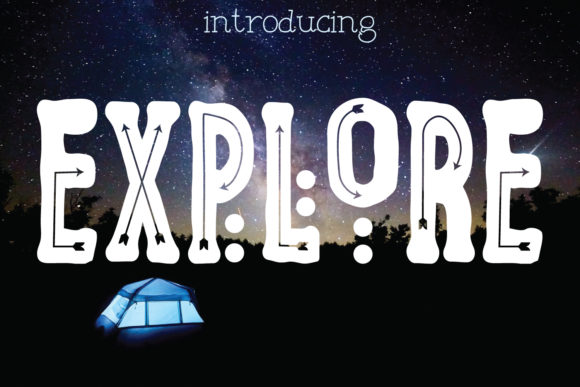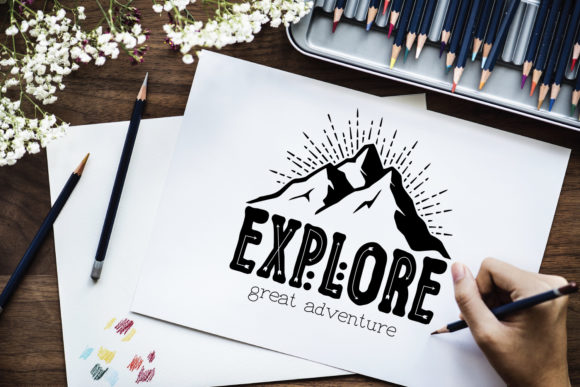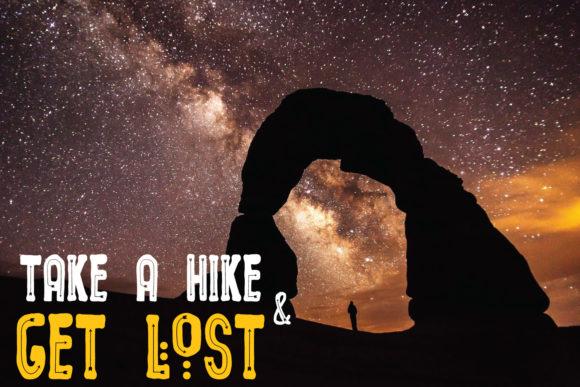
Explore Font: A Unique Decorative Font for Outdoor & Camping Designs
About the Explore Font
The Explore Font offers a perfect balance of form and function for your design needs. The Explore is an amazing font with decorative arrows in each letter. It’s the perfect font for making your design stand out with it’s uniqueness.
It’s feat for camping designs, outdoor shirts, mugs, quotes, invitations and much more!
Explore Font’s playful personality and distinctive arrow details make it ideal for headlines, logos, short taglines, and packaging designs where it can add a touch of adventurous spirit. It works exceptionally well for brands focused on travel, adventure, exploration, or outdoor activities. However, its decorative nature makes it unsuitable for body text or UI elements requiring high readability.
For optimal visual balance, pair Explore Font with a clean sans-serif like Open Sans for body copy or a more geometric sans-serif like Futura for a modern feel. A simple serif font such as Garamond could also provide a sophisticated contrast, grounding the playful energy of Explore.
The font projects a bold, adventurous, and friendly personality. Avoid using it in contexts requiring sophistication or formality.
Explore Font Usage Examples
Explore Font Example